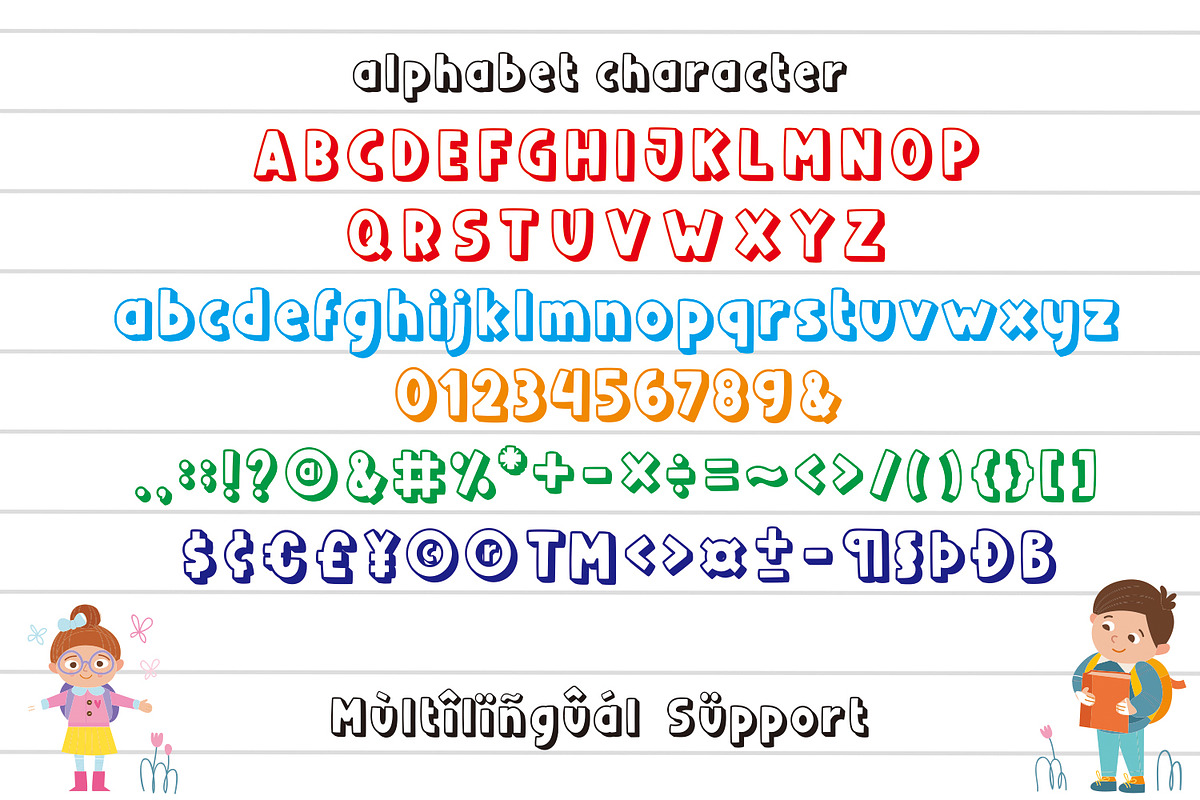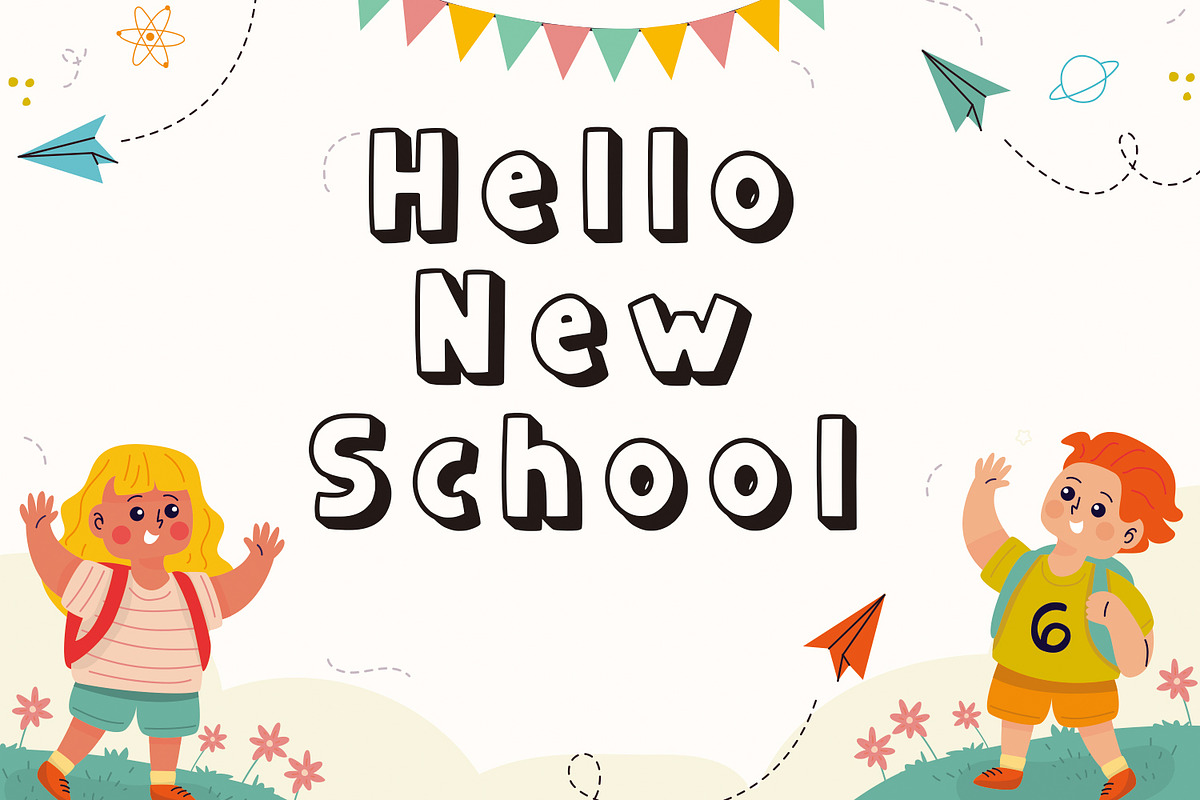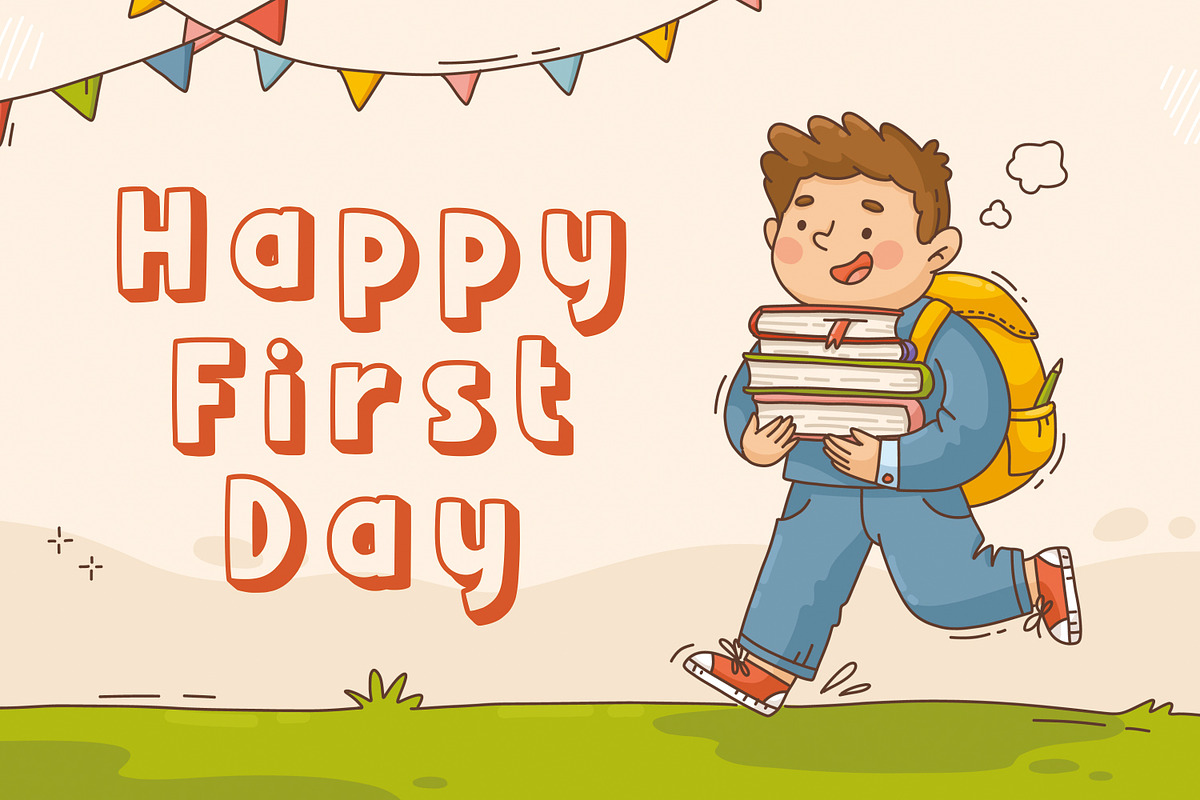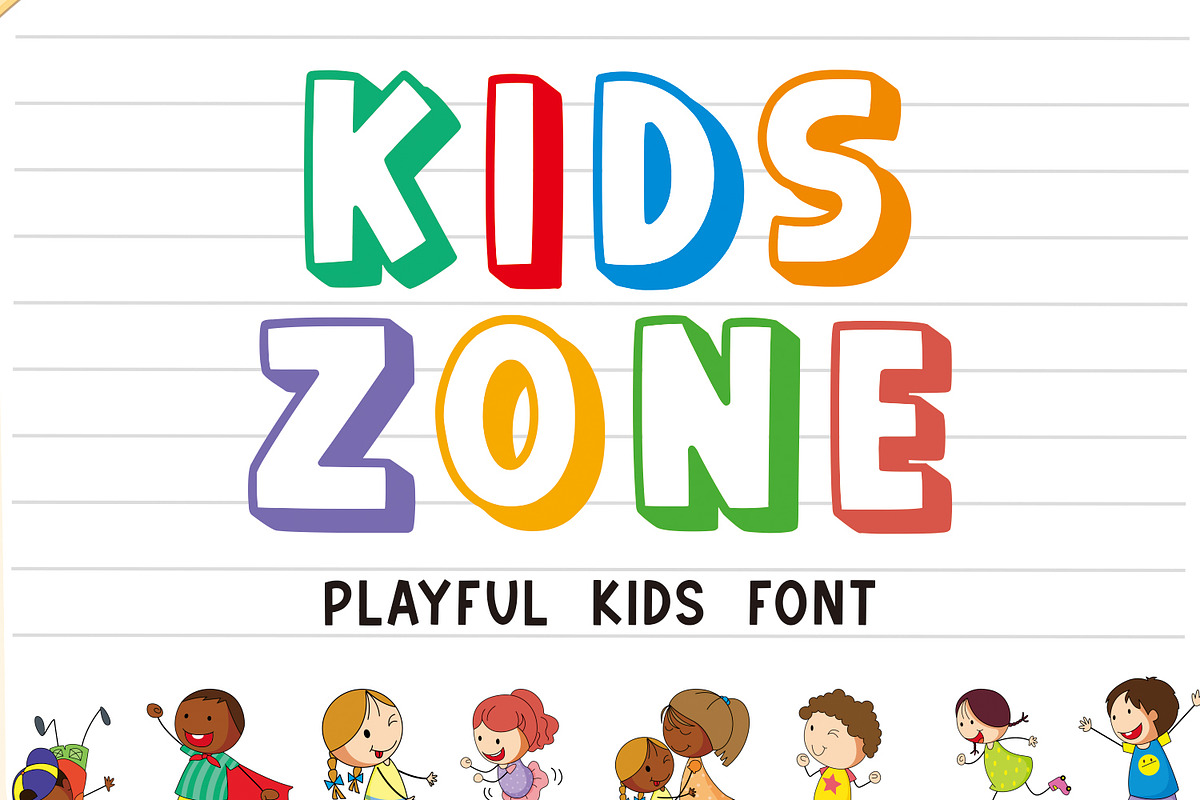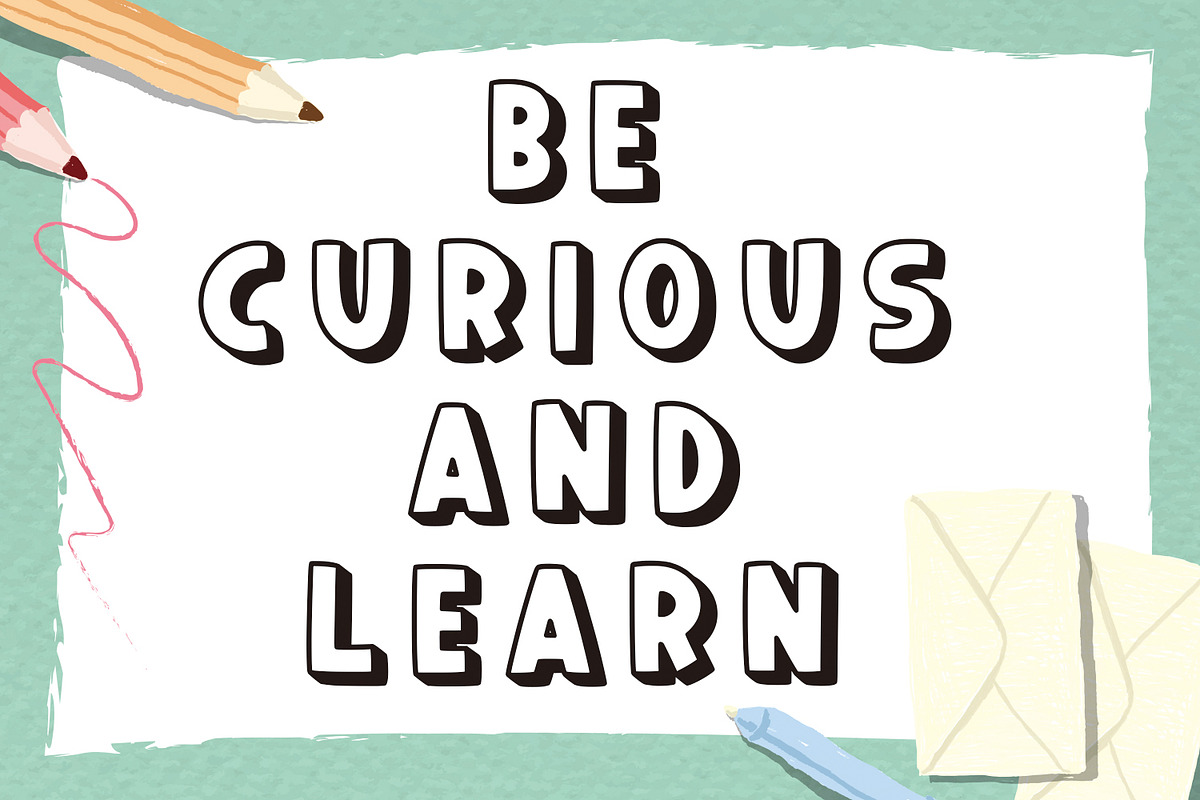
KIDSZONE
KIDSZONE font embodies a vibrant and playful display style, reminiscent of colorful chalk writings on a blackboard. It evokes a sense of nostalgia, perfect for back-to-school themes, birthday cards, children's writings, chalk-inspired designs, holiday greetings like Thanksgiving, crafting endeavors, kid-centric greeting cards, decorations, craft lettering projects, and even embroidery.
KIDSZONE font adds a cheerful and animated flair to any design, making it an ideal choice for those seeking a vibrant and child-friendly aesthetic in their creations. Its charming appeal resonates well with activities and occasions that celebrate the imaginative and spirited essence of childhood